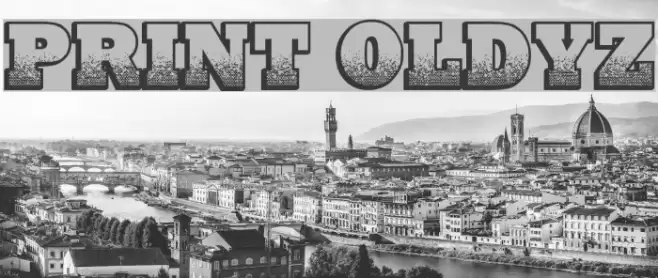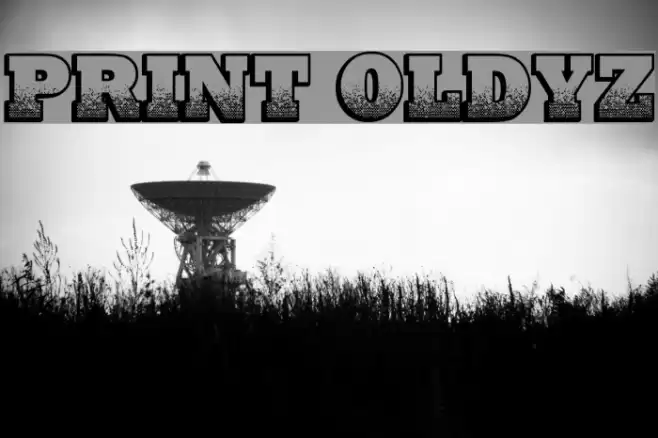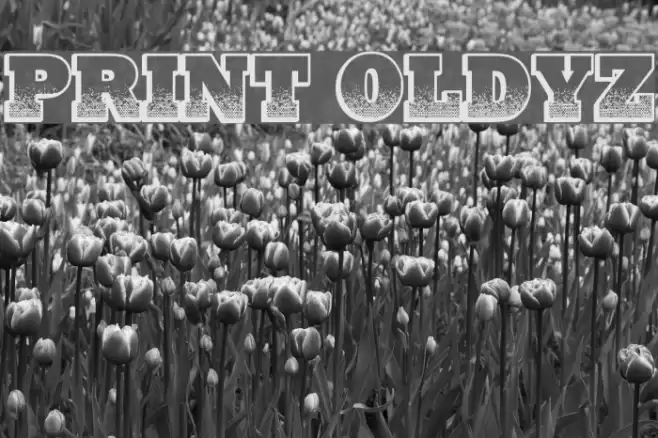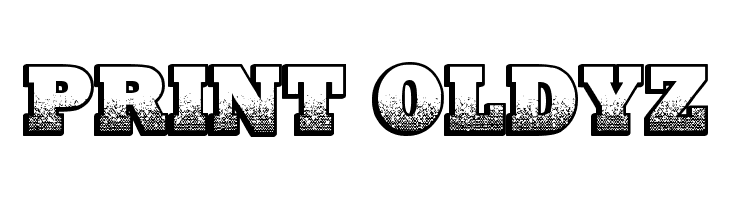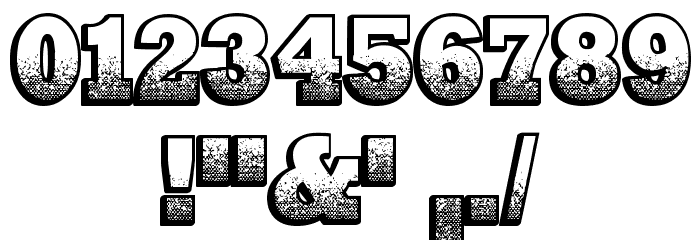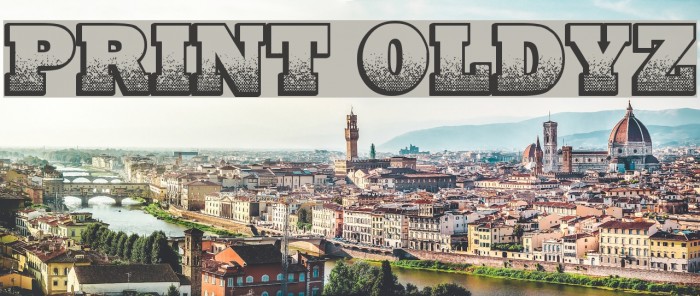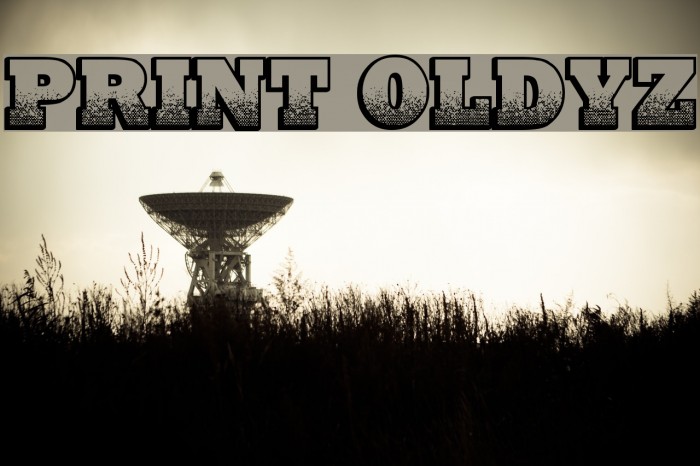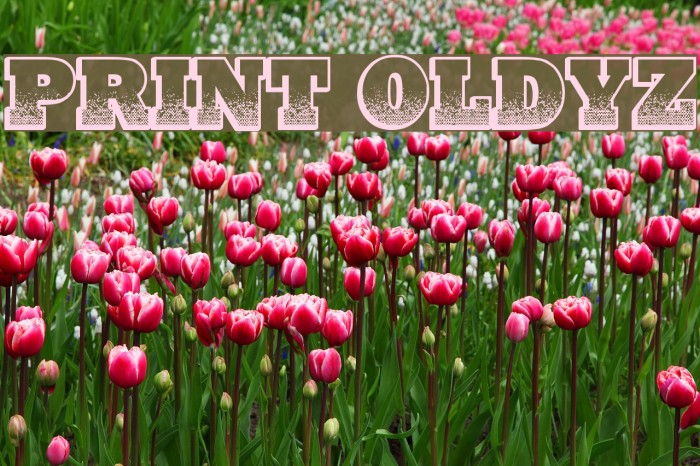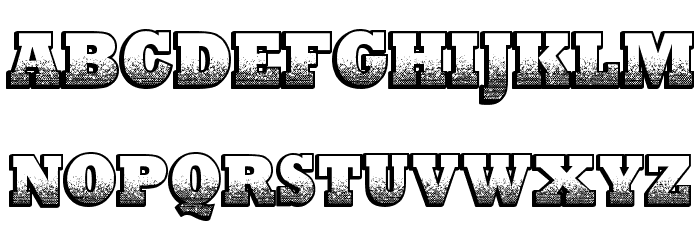
Print Oldyz Font
Print Oldyz Description
This font features a bold, decorative style with a vintage flair. The characters are designed with a thick outline and a textured fill, giving them a three-dimensional appearance. The uppercase letters are prominent and commanding, while the numbers and special characters maintain the same bold aesthetic. The texture within each character adds a unique, aged effect, reminiscent of old printing techniques. This font is ideal for projects that require a strong, eye-catching display, such as posters, headlines, or branding materials. The combination of bold outlines and intricate textures makes it stand out in any design context.
A bold, textured decorative font with a vintage style from Decorative fonts.
- Proposed Projects: Ideal for posters, headlines, branding, and any design needing a vintage, bold look.
- Overall Style: Vintage